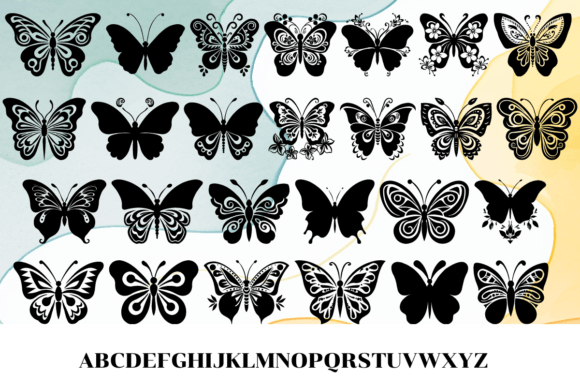
Introducing Butterfly Chic Dingbats Fonts: Elevate Your Designs with Elegance
I’ll never forget the time I was working on a branding project for a luxury wellness client. I had spent hours scouring font libraries for the perfect typeface – something that exuded serenity, sophistication, and a touch of whimsy. That’s when I stumbled upon the Butterfly Chic Dingbats Fonts. It was love at first sight! The elegant butterfly designs dancing across each character from A to Z instantly elevated my project. If you’re a fellow designer, crafter, or creative hobbyist looking for a stylish font to take your work to the next level, you’re in the right place.
Unboxing Butterfly Chic Dingbats Fonts
This digital product offers a stunning set of 26 characters, each adorned with chic and elegant butterfly designs. The package includes both OTF and TTF formats, making it easy to use in various design software. But what really sets Butterfly Chic apart is its attention to detail and versatility.
Honest Review: The Good, the Great, and the Quirks
- ✨ Elegant and sophisticated design that’s perfect for luxury brands or high-end projects
- 🌈 Versatile and adaptable for different design styles and industries
- 🤔 Limited to 26 characters (A-Z), which might not be suitable for projects requiring a full alphabet or extensive text
- ⚠️ May not be the best fit for very bold or edgy design styles, as it’s inherently elegant and refined
The story behind Butterfly Chic Dingbats Fonts is one of passion and inspiration. The designer, known for their love of nature and elegance, was inspired by the beauty of butterflies and the world of high-end fashion. With a keen eye for detail and a deep understanding of typography, they crafted a font that would bring a touch of sophistication to any design project.
Q: Is Butterfly Chic suitable for body text or long-form content?
A: While Butterfly Chic is a beautiful font, it’s primarily designed for display purposes or short text elements. For body text or long-form content, you may want to consider a more traditional font with better readability.